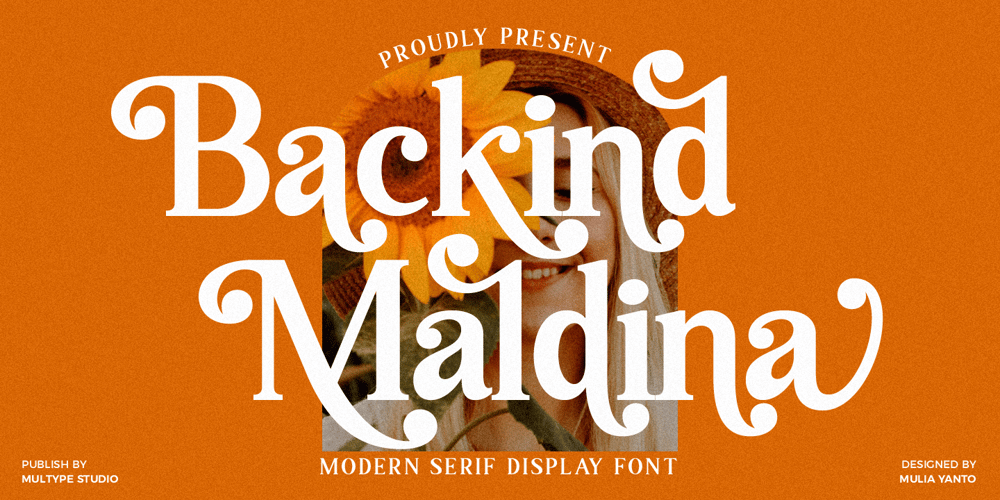
Backind Maldina Font Family was designed by Mulia Yanto and published by Multype Studio. Backind Maldina contains 1 styles and family package options. Backind Maldina is a chic,classy, and modern bold serif font with many alternates character to access in OpenType features. This font is perfect for branding, logos, social media, advertisements, product packaging, watermark, invitation, stationery, tshirt, prints, posters and moreWhat’s Included : Uppercase & Lowercase Stylistic Alternate Ligature Numbers & Symbols Works on PC / Mac Simple installations Accessible in the Adobe Illustrator, Adobe Photoshop, Adobe InDesign, even work on Microsoft Word PUA Encoded Characters, Fully accessible without additional design software. Multilingual support Thank you for your purchase!Hope you enjoy with our font!